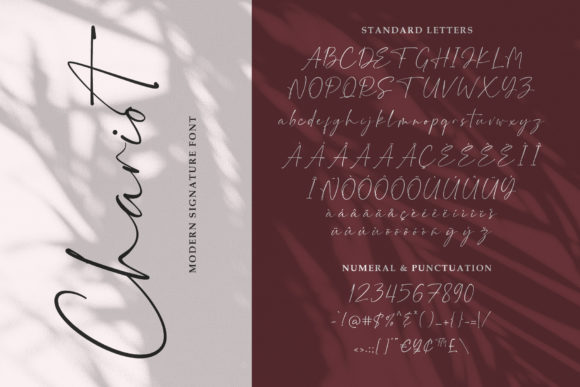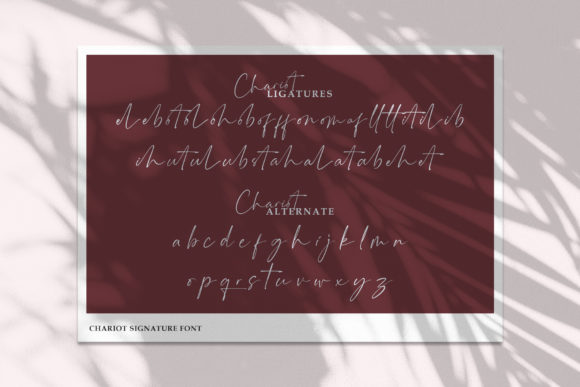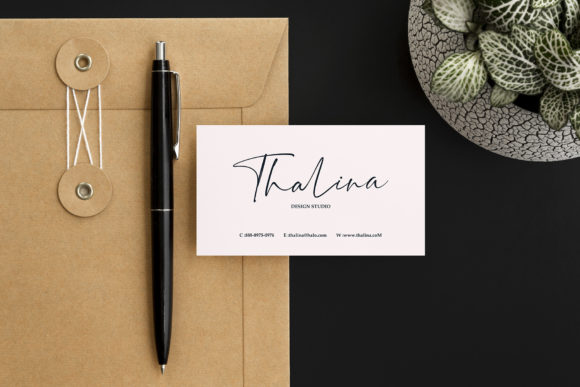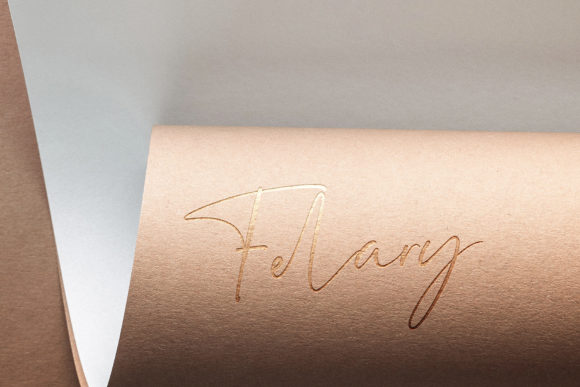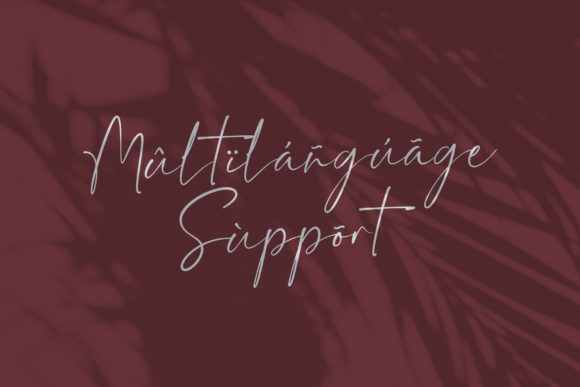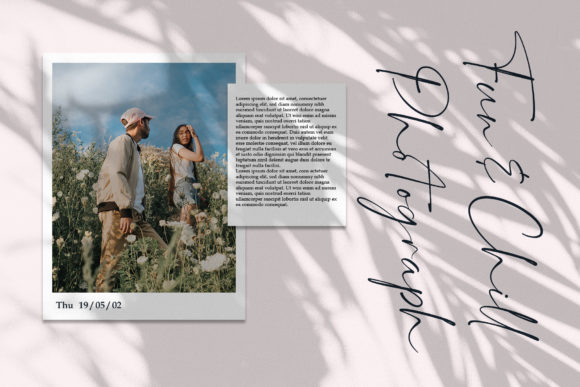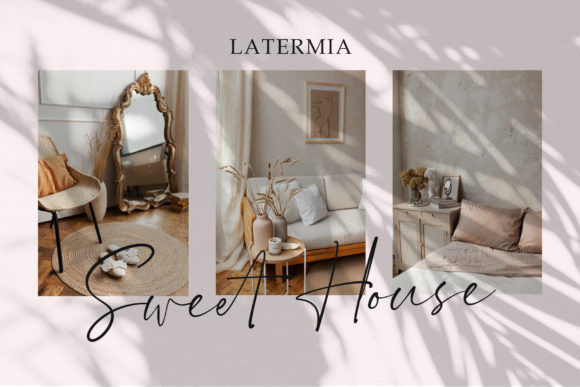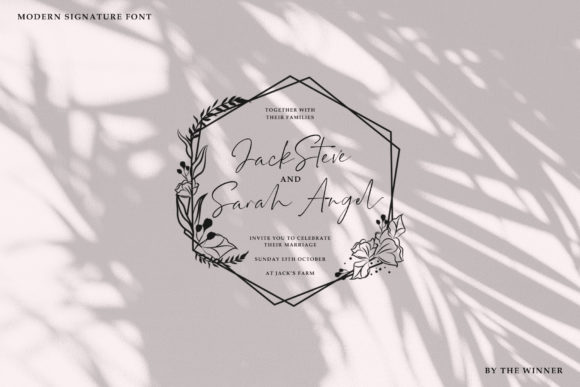
Chariot Font
About Chariot Font
Chariot is a neat and unique script font suitable for logos, branding, invitations, posters, apparel, layout design, taglines, and many more. Add it to any of your creative projects, and it will make them come alive!